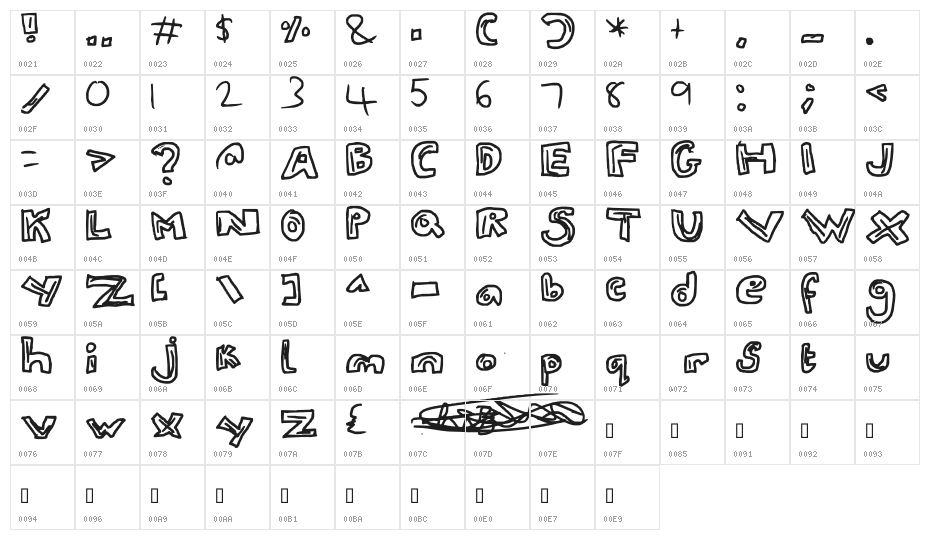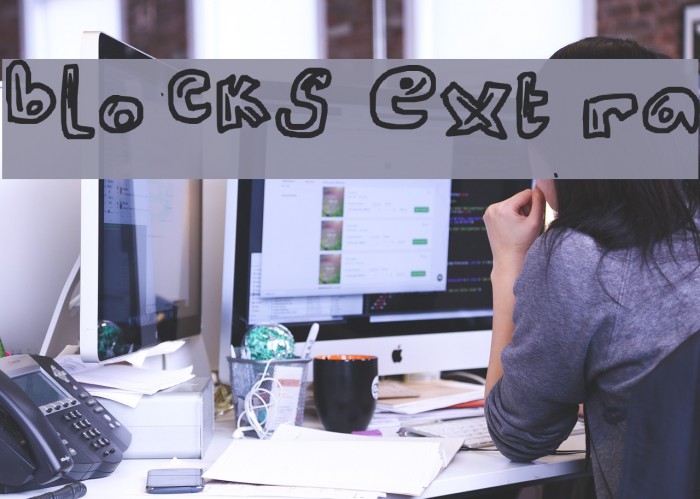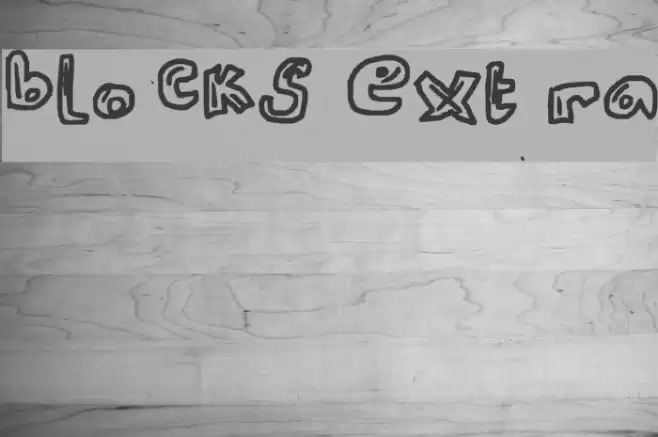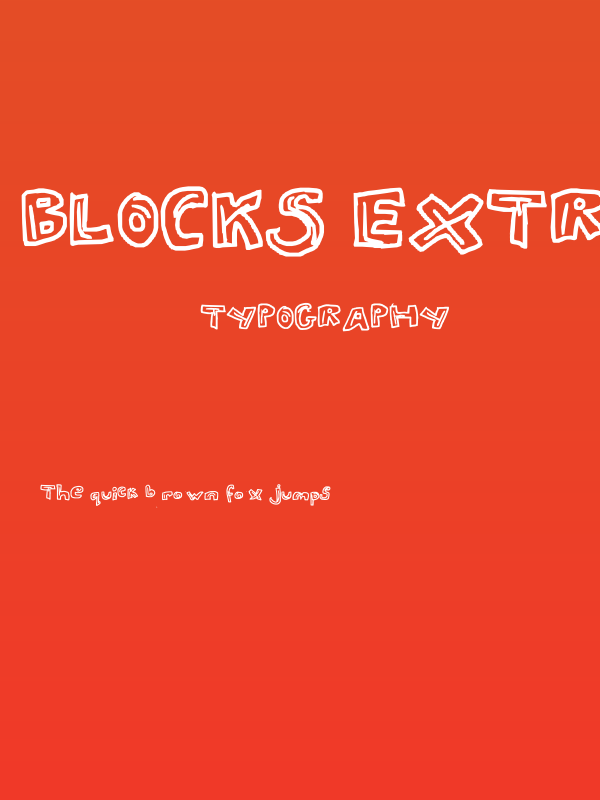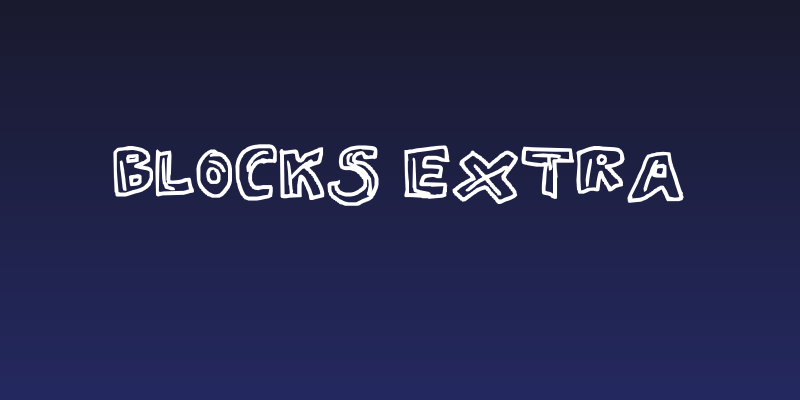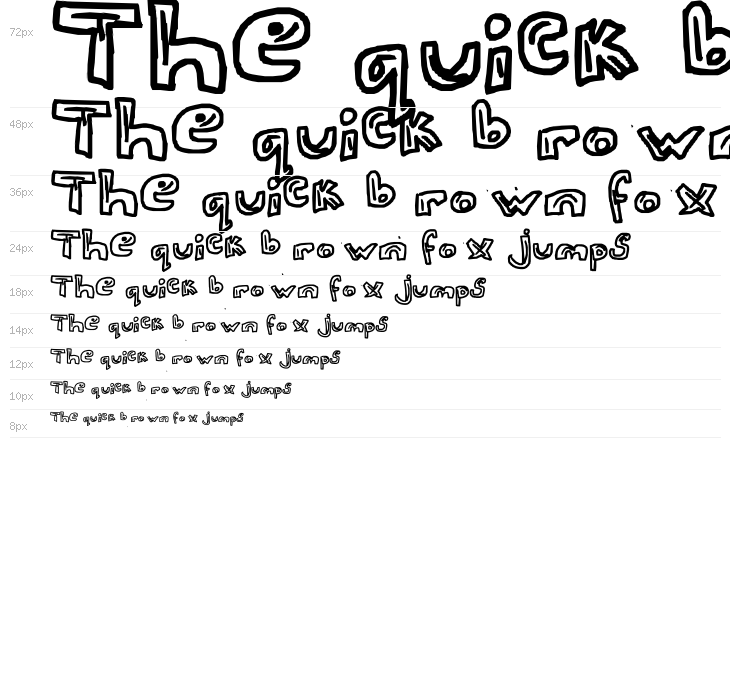
blocks extra Font
blocks extra Description
This font features a playful and bold design with a hand-drawn aesthetic. The characters are outlined with a thick, uneven stroke that gives a casual and whimsical feel. The uppercase and lowercase letters maintain a consistent style, with exaggerated curves and angles that add to its quirky charm. Numbers and special characters follow the same playful design, making it suitable for creative and informal projects. The font's unique style makes it stand out, perfect for capturing attention in a fun and engaging way.
| Overall Style | Playful, Whimsical, Hand-drawn |
| Use Case | Headlines, Posters, Creative Branding |
| Proposed Projects | Ideal for children's books, comic strips, playful branding, and creative posters. |